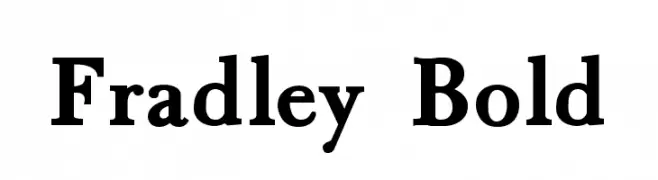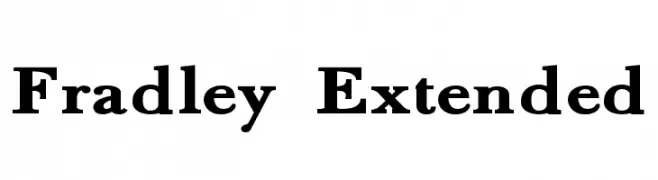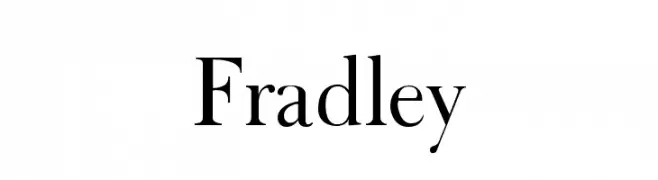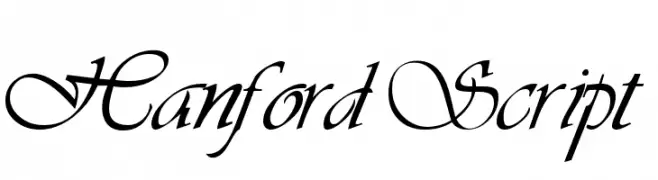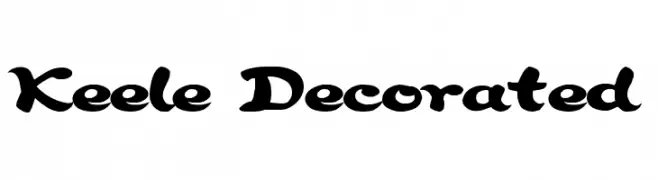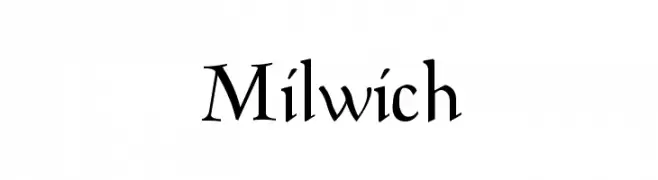
A classic serif typeface with high contrast and sharp serifs, exuding elegance and sophistication.
A classic serif font with bold, elegant serifs and a modern touch.
A bold, classic serif font with strong strokes and elegant serifs.
An elegant script font with intricate loops and flourishes.
A bold, decorative font with playful, rounded characters and a whimsical style.
A bold, calligraphic font with sharp, angular strokes and a traditional flair.
A bold, condensed, and modern geometric font with strong vertical emphasis.
A clean, elegant font with a modern yet timeless appeal.
A distinctive serif font with sharp angles and a blend of traditional and modern styles.
A dotted font ideal for educational and playful design projects.